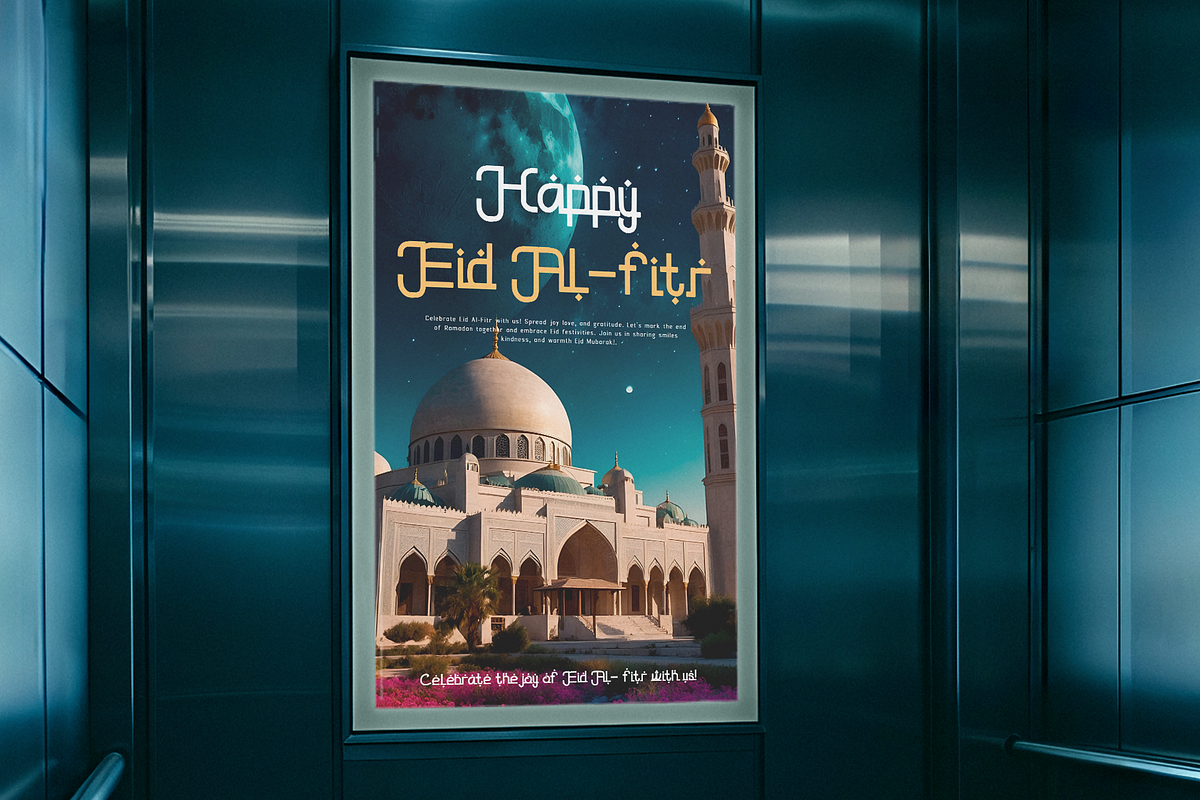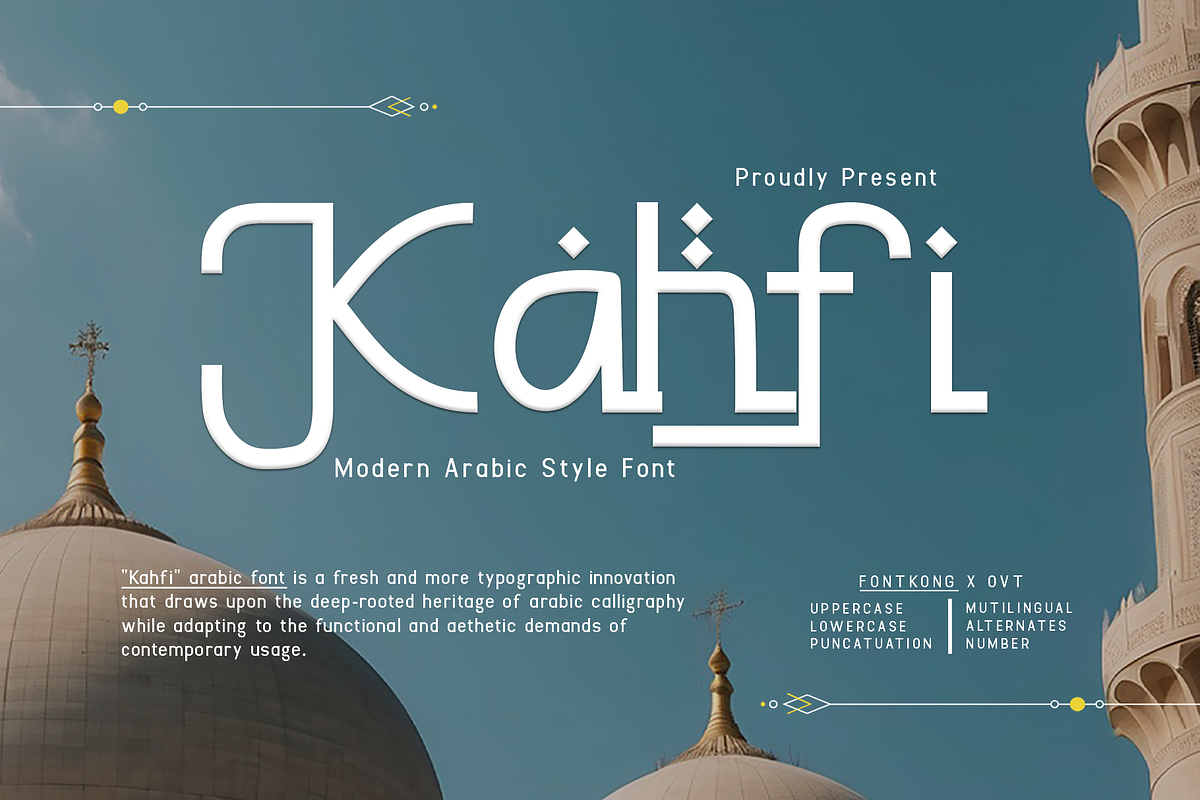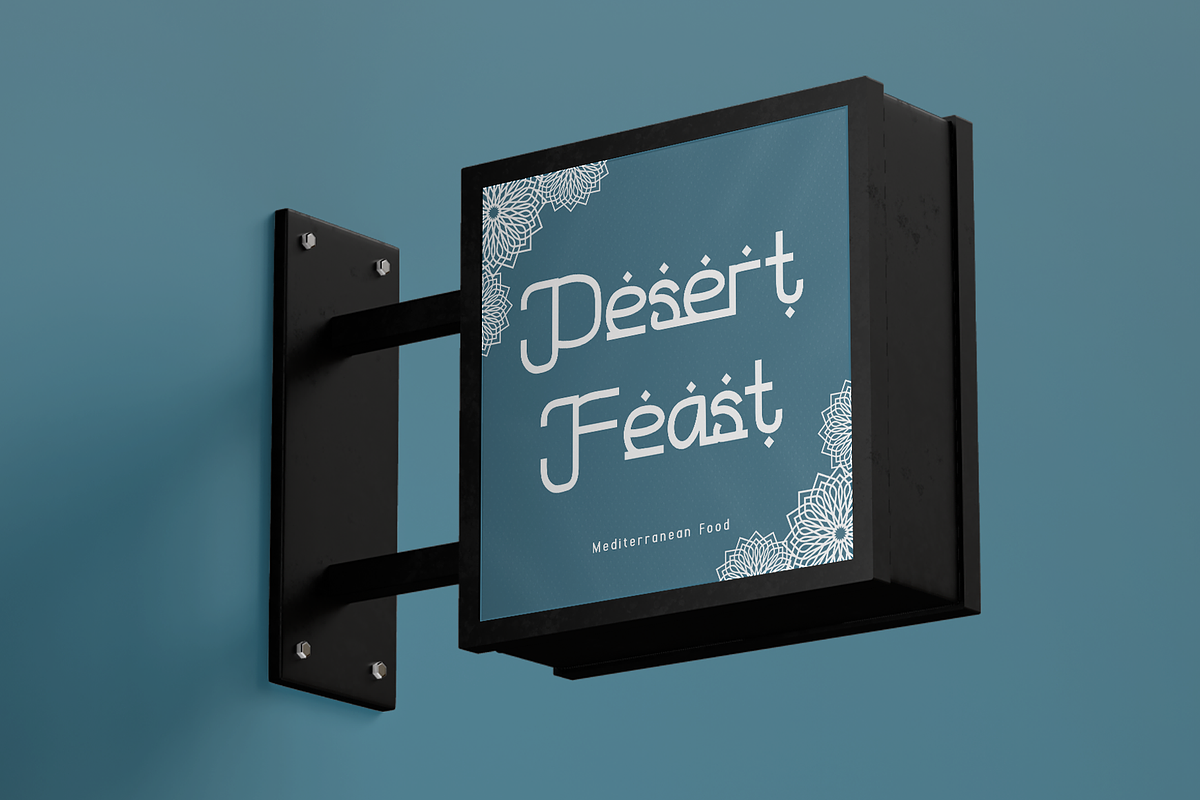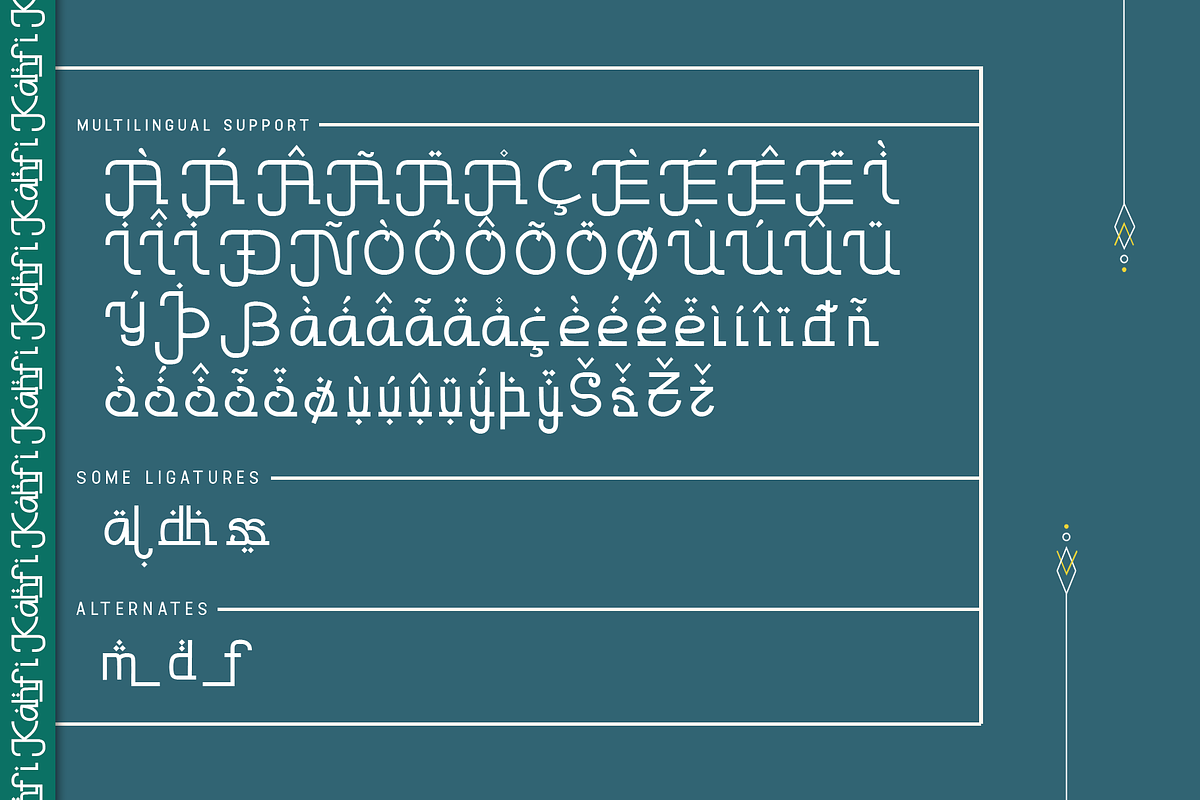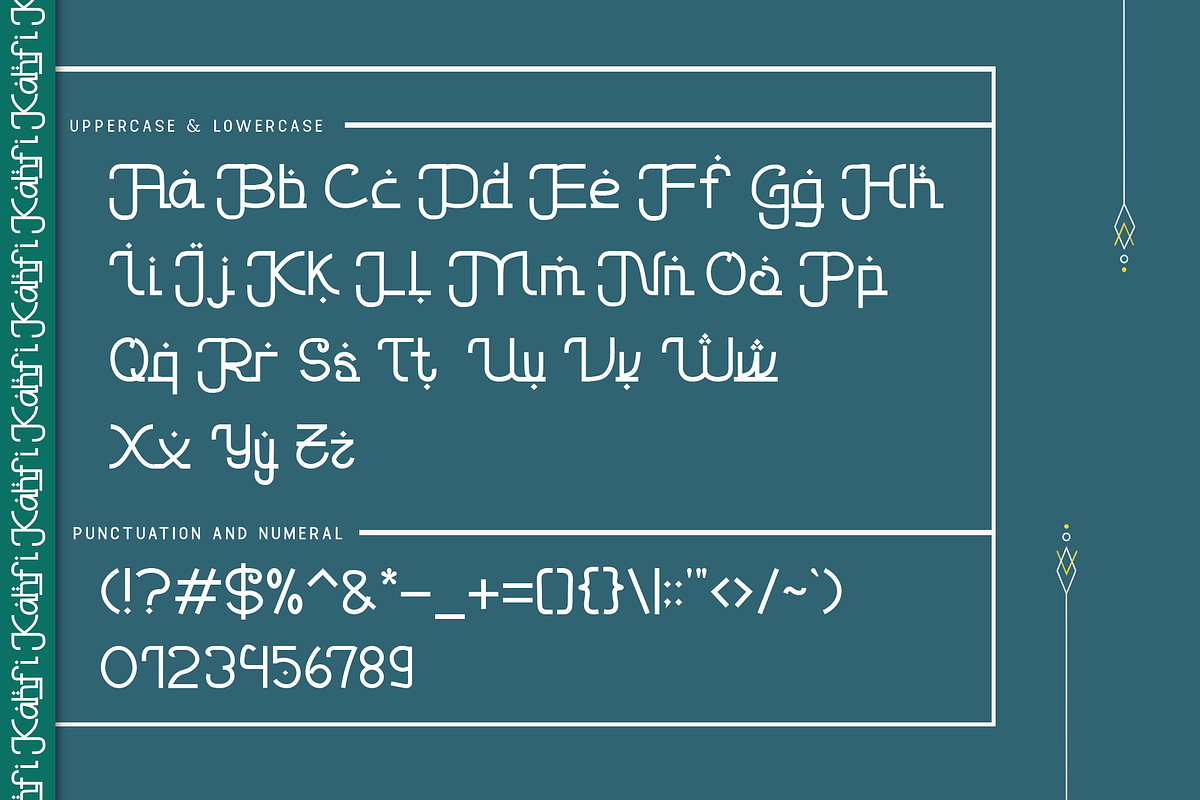
Kahfi - Modern Arabic Style Font
Kahfi is a modern Arabic-style font designed for projects that demand elegance and cultural depth. Perfect for branding, Islamic-inspired visuals, and stylish logos, Kahfi offers a unique aesthetic that stands out in modern designs.